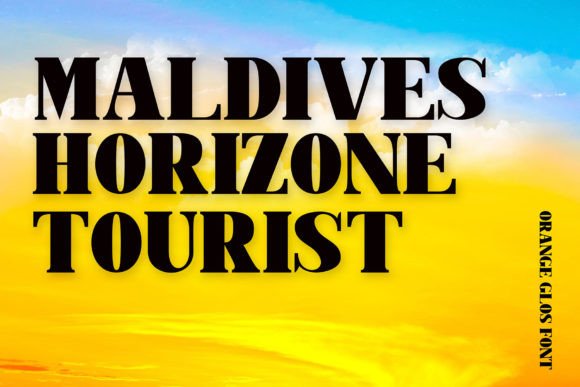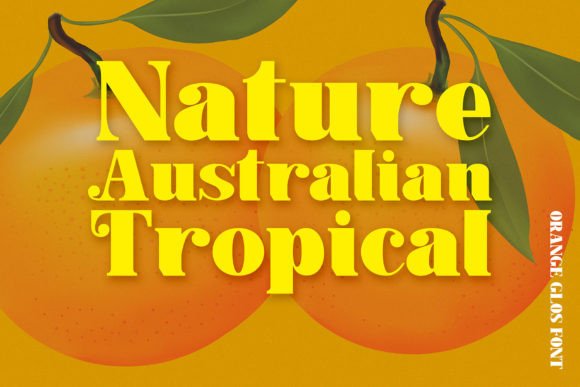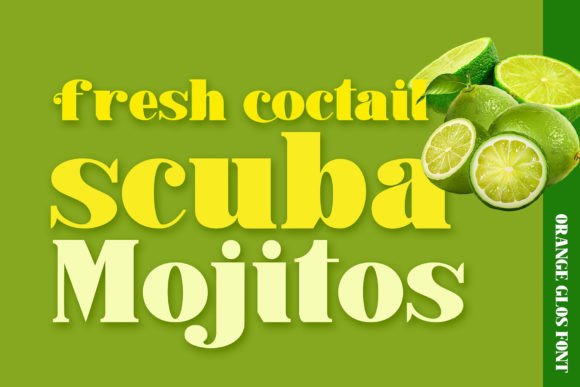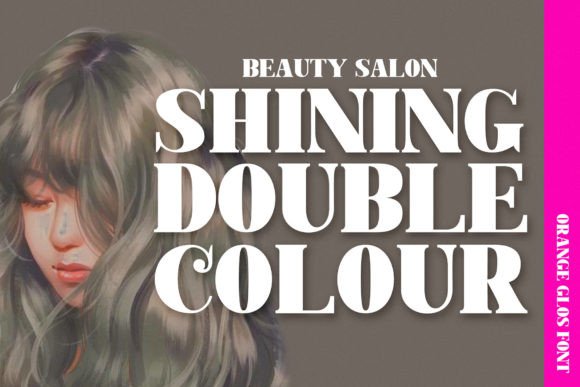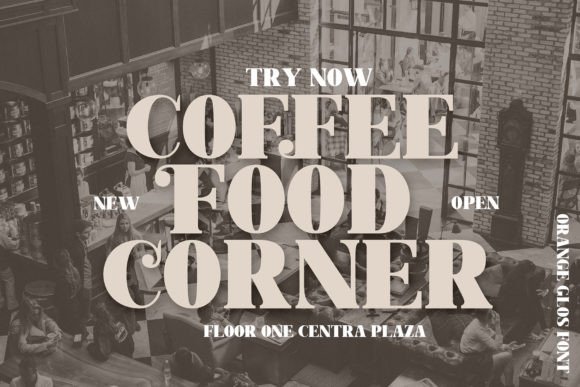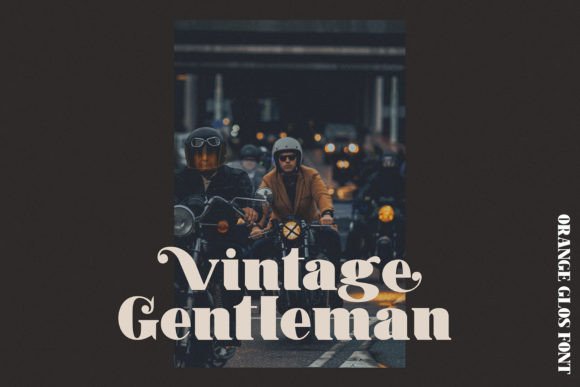
Introduction to Orange Glos Font
Have you ever been working on a creative project and found the perfect font to bring your design to life, only to realize it’s missing that special something? For designers, finding the perfect font can be a game-changer, and that’s exactly what the Orange Glos Font aims to provide.
With its bold classic serif style and hand-illustrated alternatives, the Orange Glos Font is the perfect addition to any design resource. Its unique texture and ornate details make it a standout choice for logos, branding, and even apparel and bridal designs.
Whether you’re working on a high-quality design or need a versatile font for a free download, the Orange Glos Font is sure to impress. Its transparent background and preserved textures make it a valuable asset for designers looking to add a touch of elegance to their work.
Key Features of Orange Glos Font
- Designed with a unique, vibrant orange tone for visual impact
Honest Review: Orange Glos Font
As a designer, I’m always on the lookout for high-quality resources to elevate my creative projects. The Orange Glos Font is one such find that I’m excited to share with you.
- ✨ High-quality typography that stands out in any design
- ✨ Smooth and sleek design that’s perfect for modern branding
- ✨ Easy to customize and pair with other fonts
- ⚠️ Limited font styles available (only a few variations)
- ⚠️ No support for transparent backgrounds, which can be a problem for certain designs
Overall, the Orange Glos Font is a solid addition to any designer’s toolkit. While it’s not perfect, its high-quality design and ease of use make it a worthwhile resource for any creative project. With a little creativity and customization, you can achieve amazing results with this font.
Tips for Getting the Most Out of Orange Glos Font
When using the Orange Glos Font, be sure to use a transparent background to ensure a seamless design. You can also experiment with different font sizes and colors to create a unique look. Additionally, consider combining the Orange Glos Font with other design elements to create a cohesive and visually appealing design.
Common Use Cases for Orange Glos Font
The Orange Glos Font is ideal for a variety of creative projects, including logos, business cards, and social media graphics. Its high-quality design makes it perfect for use in marketing materials, presentations, and other visual content.